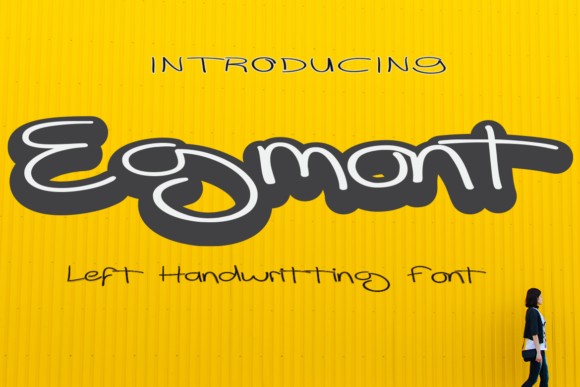
Get ready to fall in love with Egmont, the font that's set to redefine your design creations! This remarkable handwritten font possesses a personality that will leave you captivated, and its powerful visual presence will elevate your projects to new heights.
Egmont's charm lies in its intricate details, its distinctive letterforms that dance across the page like a declaration of individuality. Its smooth curves and sharp edges blend seamlessly to create a font that's both elegant and approachable.
Whether you're a seasoned designer or just starting your creative journey, Egmont is the perfect companion to turn your ideas into reality. Unleash its potential in logos, branding, posters, and social media graphics. It will effortlessly capture attention, making your designs stand out from the crowd.
With Egmont in your design arsenal, you'll be amazed at how easy it is to create designs that resonate with your audience. It's the perfect choice for those who want their work to leave a lasting impression.